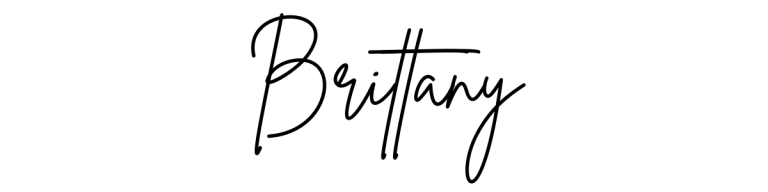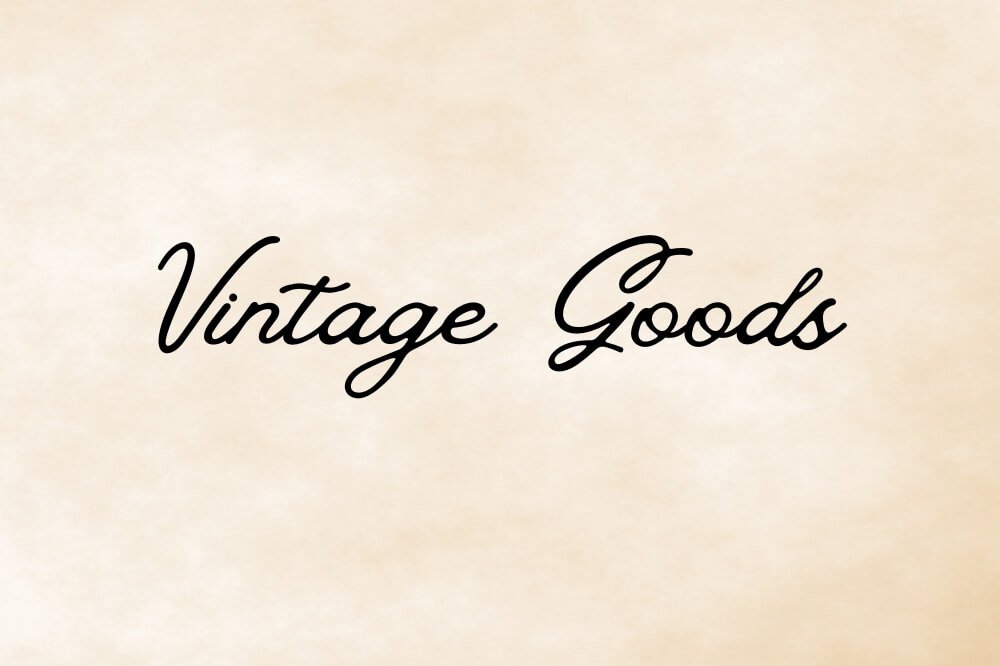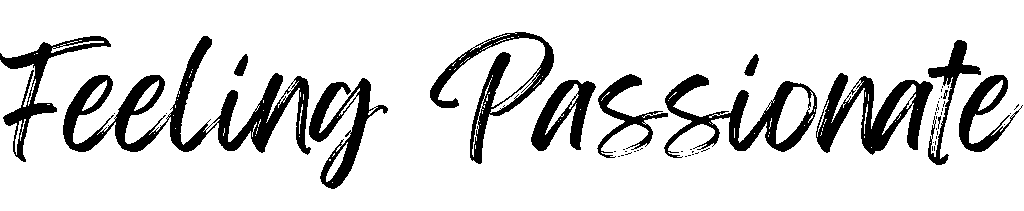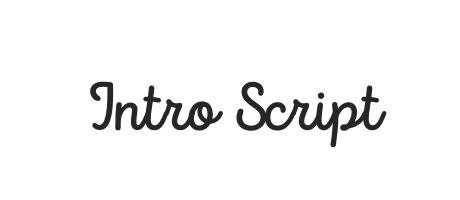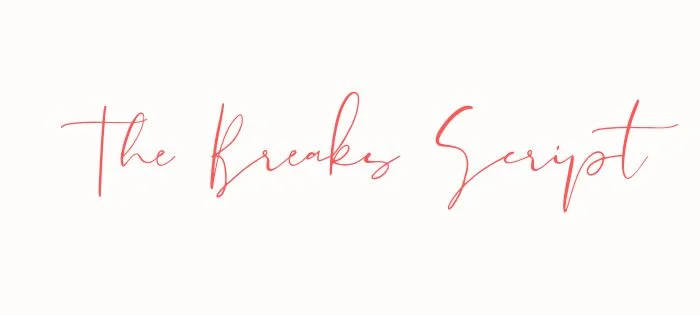
Cursive fonts are one of the most powerful tools in a designer’s toolkit. They bring elegance, personality and a human touch to any design – from wedding invitations and luxury brand logos to social media graphics and greeting cards.
In 2026, Canva has one of the best collections of cursive and script fonts available in any free design tool. But with so many options, knowing which ones are actually worth using – and for what – makes all the difference.
In this guide, we have handpicked the 25 best cursive fonts on Canva, covering both free and Pro options. For each font, we cover its style, best use cases and what makes it stand out – so you can find the right one for your project quickly and confidently.
What Is A Cursive Font?
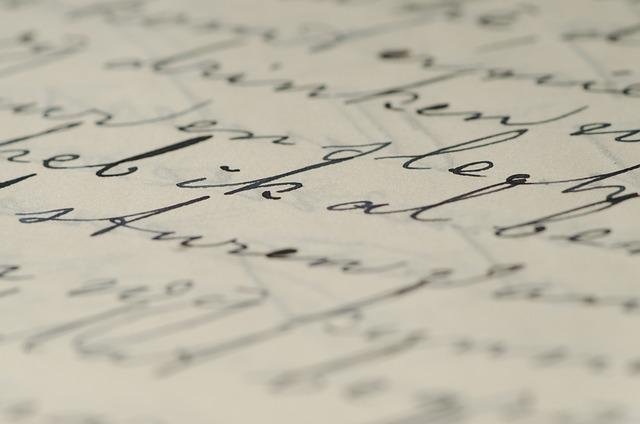
Cursive fonts digitally replicate handwritten text where letters connect in a flowing, continuous style.
Dating back to the 16th century, cursive writing was developed to increase writing speed and improve the aesthetic appeal of handwritten documents. Today’s digital cursive fonts maintain this heritage while offering precise design control.
A cursive font features characters that appear joined together in a fluid manner, mimicking the natural movement of writing by hand. Unlike block letter fonts, cursive typefaces create an impression of movement and personality. The distinctive feature of true cursive fonts is their connected letters, though some modern interpretations may include partial connections while maintaining the cursive aesthetic.
Cursive fonts range from elegant and formal to casual and playful, providing designers with numerous stylistic options for different projects. These fonts often feature varying stroke thicknesses, flowing curves, and decorative elements that add character and visual interest to designs.
Why Use Cursive Fonts In Your Designs?
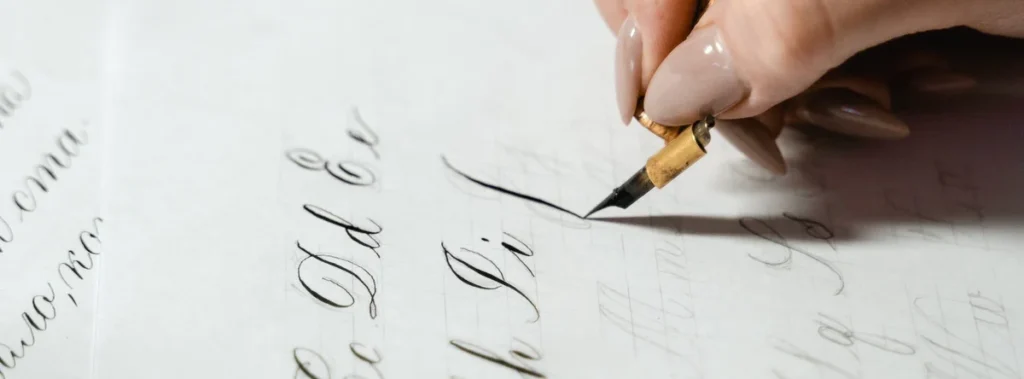
Cursive fonts transform ordinary text into visually compelling elements that capture attention and communicate personality.
When applied thoughtfully, these fonts can:
- Add a touch of elegance and sophistication to wedding stationery, invitations, and formal announcements
- Create a sense of authenticity and personal connection in branding materials
- Enhance the visual appeal of social media graphics, especially on platforms like Instagram and Pinterest
- Provide contrast when paired with more structured serif or sans-serif typefaces
- Convey specific moods ranging from playful and casual to formal and luxurious
For social media content, cursive fonts help your graphics stand out in crowded feeds. Pinterest pins featuring elegant cursive typography often receive higher engagement rates because they catch the eye while scrolling.
Similarly, Instagram posts with well-chosen cursive elements tend to appear more thoughtfully designed.
In logo design, cursive fonts can become the foundation of memorable brand identities.
Many successful businesses use cursive typography in their logos to communicate craftsmanship, creativity, or exclusivity. The flowing nature of cursive letters creates distinctive letterforms that customers remember.
Difference Between Cursive, Script, and Calligraphy Fonts
Though often used interchangeably, cursive, script, and calligraphy fonts each have distinct characteristics that make them suitable for different applications:
- Cursive fonts feature connected letters designed to mimic continuous handwriting. These fonts prioritize flow and readability, maintaining consistent spacing and stroke width. Cursive fonts typically balance legibility with decorative elements.
- Script fonts represent a broader category that includes cursive styles but extends to other handwriting-inspired typefaces. While all cursive fonts are script fonts, not all script fonts are cursive. Some script fonts have disconnected letters but still maintain a handwritten appearance.
- Calligraphy fonts specifically emulate the art of decorative handwriting created with specialized tools like brushes, pens, or nibs. These fonts often feature dramatic variations in stroke thickness, elaborate flourishes, and highly stylized letterforms. Calligraphy fonts tend to be more ornate and formal than typical cursive fonts.
On Canva, you’ll find these font types categorized under “Handwriting” or “Script” in the font selection panel. The platform offers a mix of all three styles, giving designers plenty of options for various projects.
25 Best Cursive Fonts On Canva
Canva has a great collection of cursive fonts for designers.
Amsterdam One
Amsterdam One is a modern font. It has a relaxed cursive style. The letters have soft curves and flow nicely.
The tails of the letters are simple and not too fancy. This makes it great for social media graphics. It is also good for casual branding needs. This font is perfect for fashion brands or lifestyle blogs.
A handwritten look adds charm to these projects.
The key is to choose a font that matches the mood of your project and stays easy to read. Use cursive for headlines, short phrases and accent text – and pair it with a clean, simple font for body copy to keep your layout balanced.
In 2026, all 25 fonts in this guide are available on Canva – many of them on the free plan. Start with a few that catch your eye, test them in your next design and you will quickly find the ones that feel right for your style.